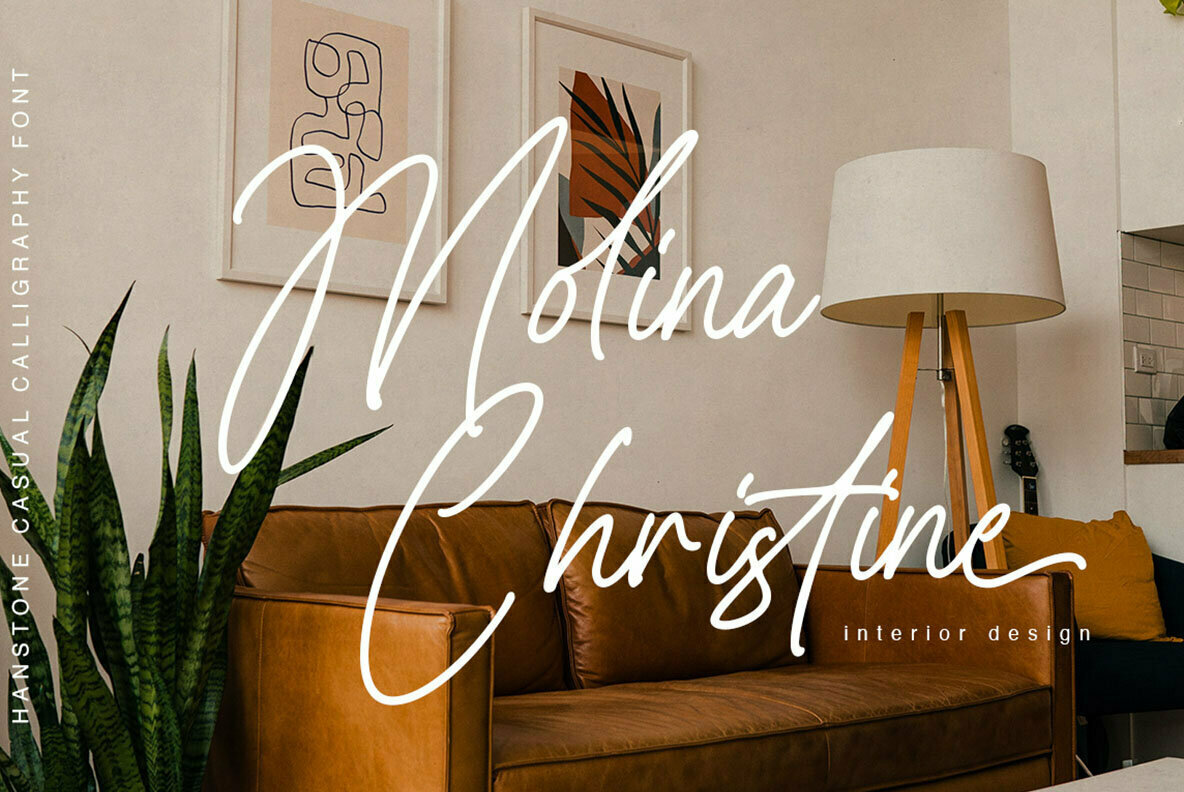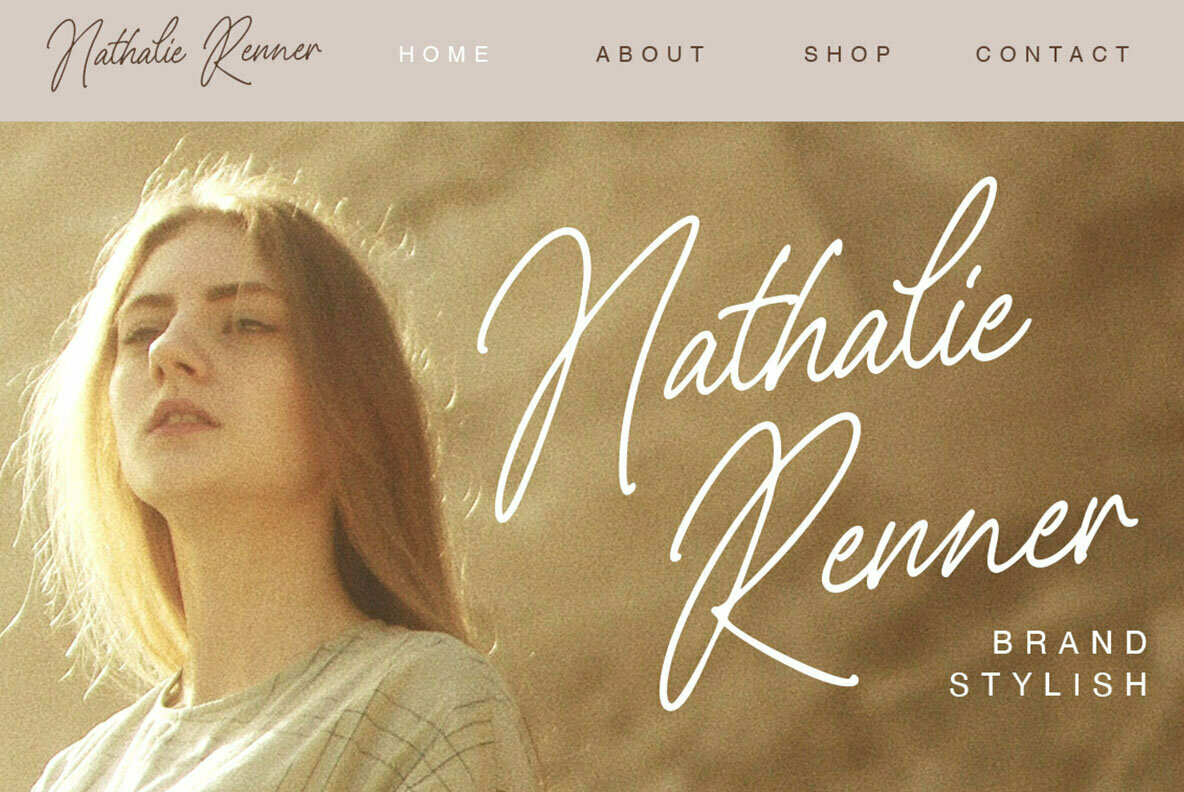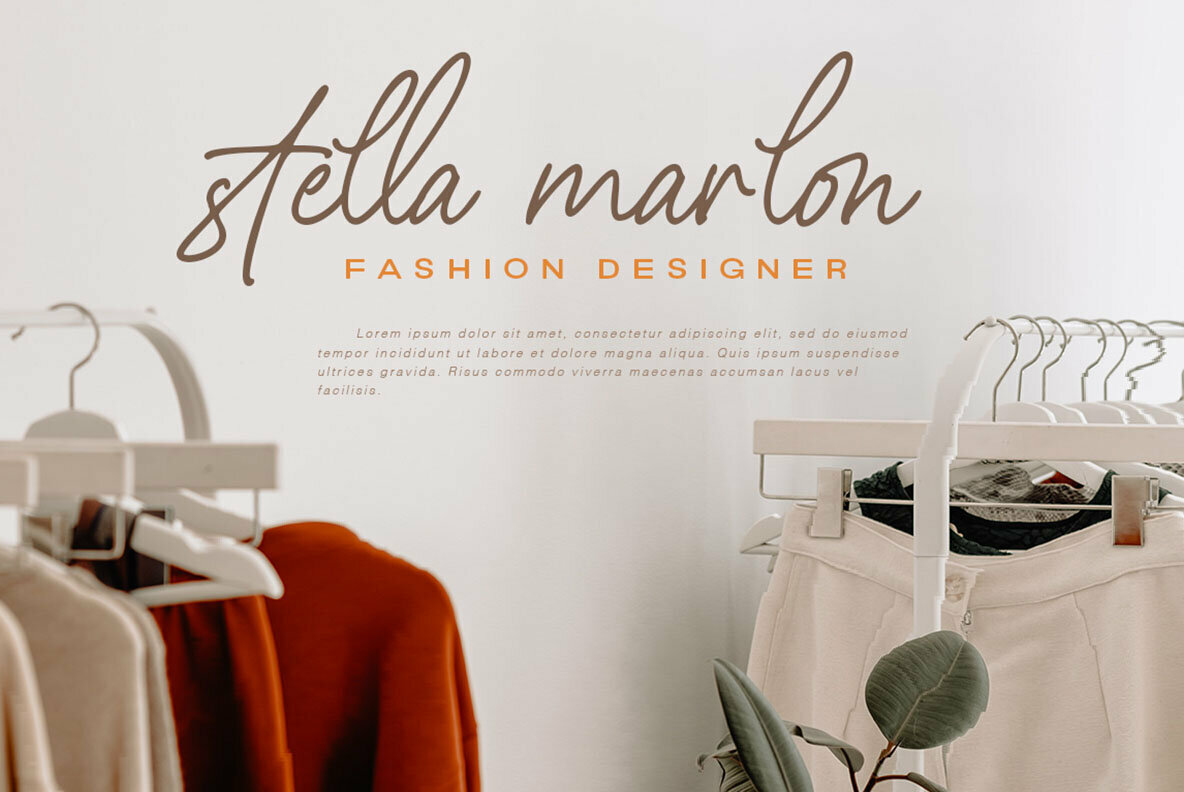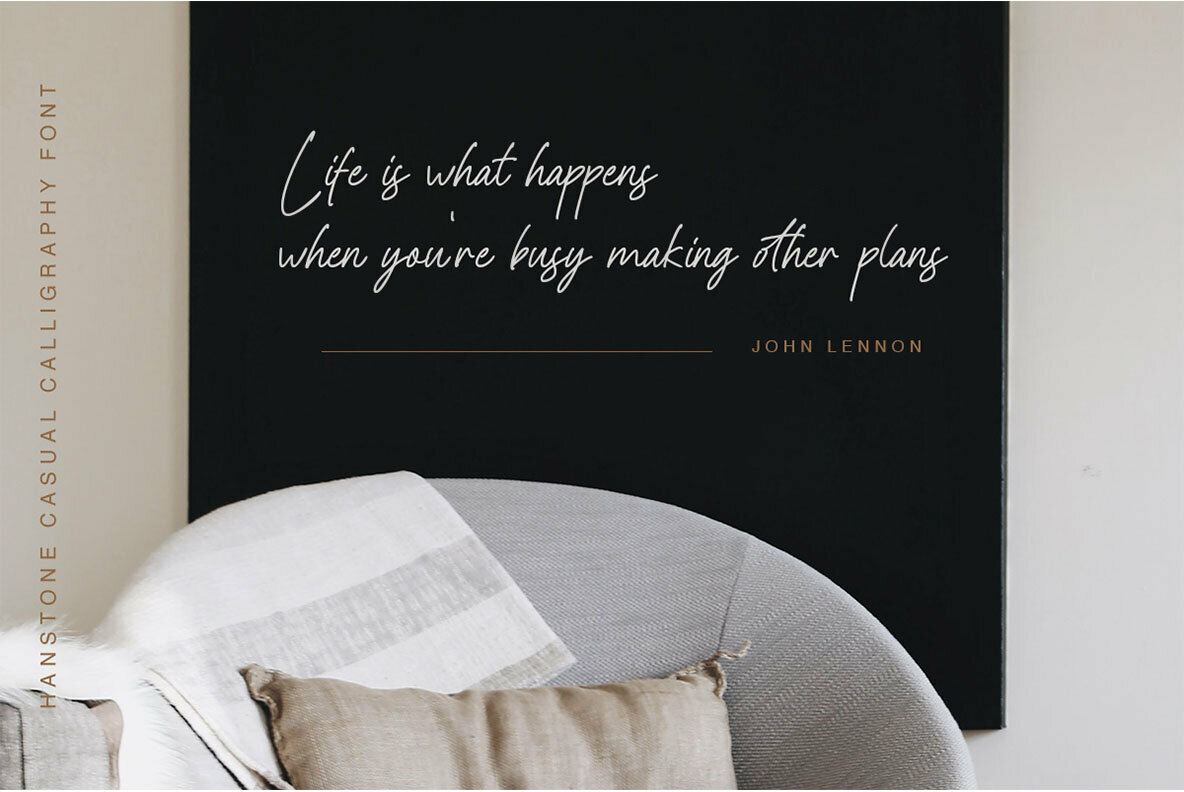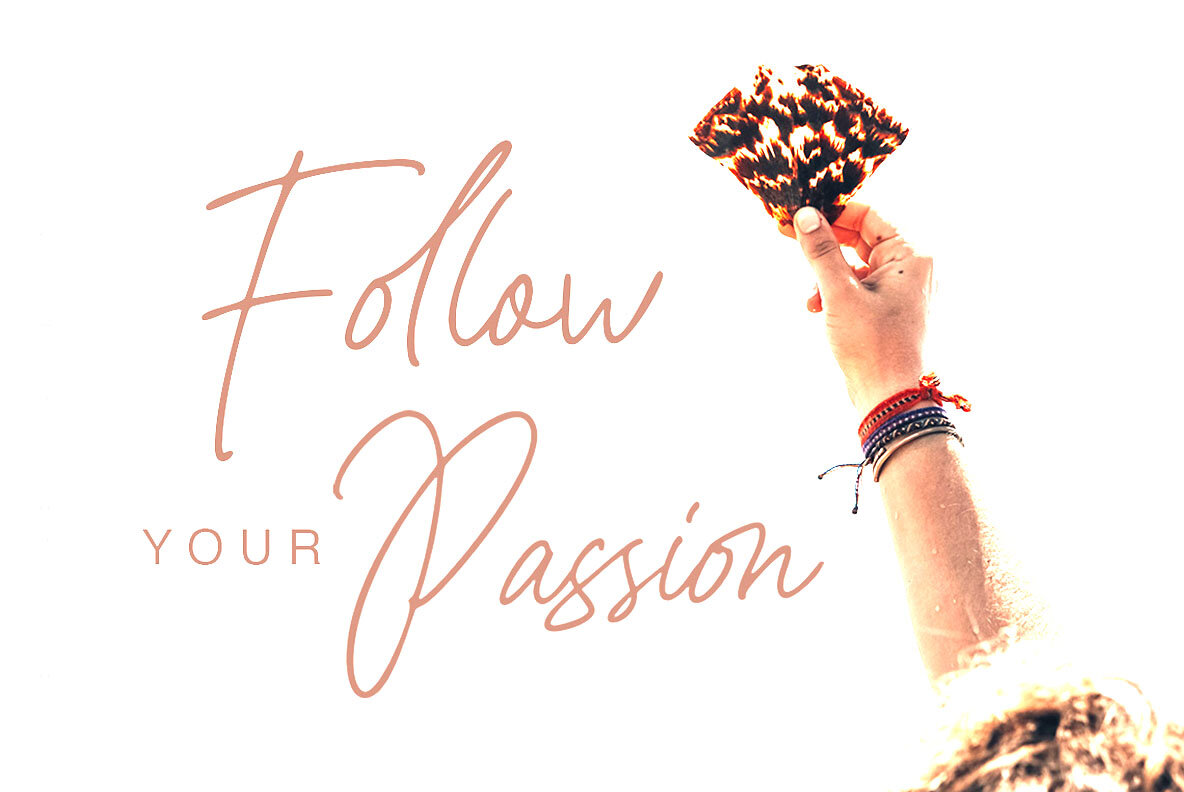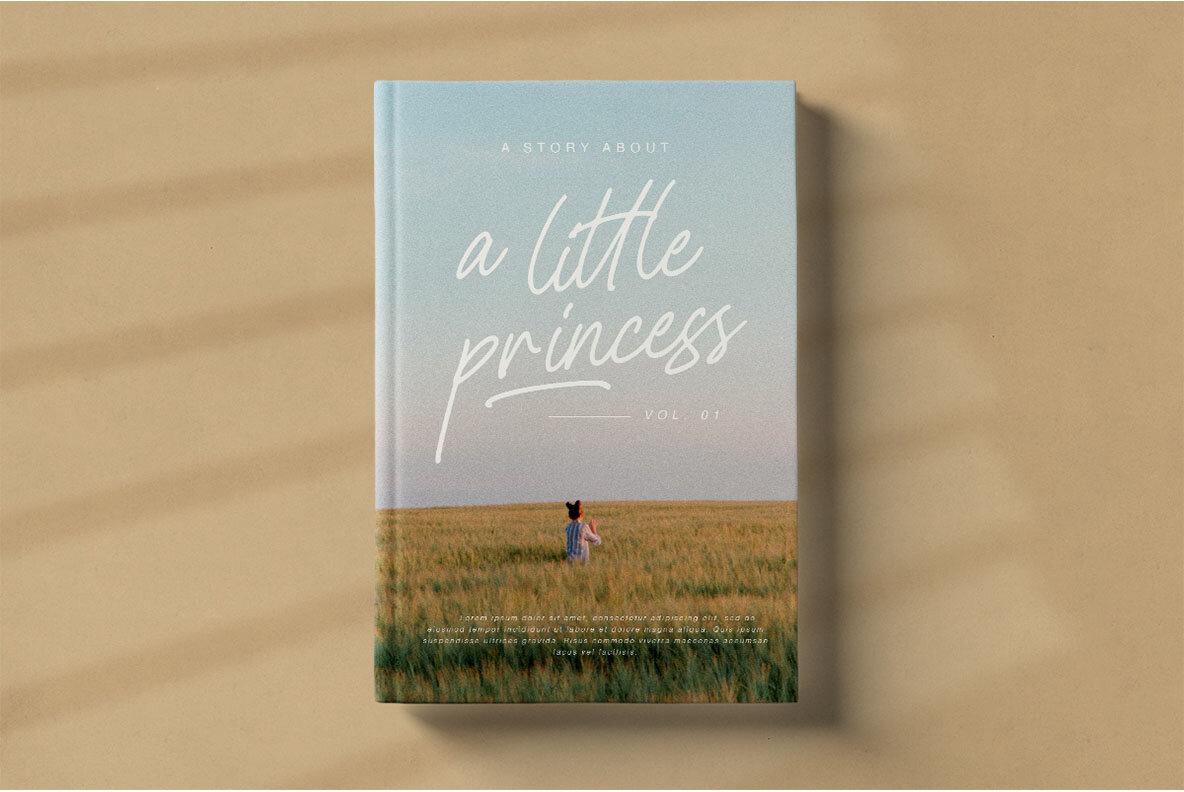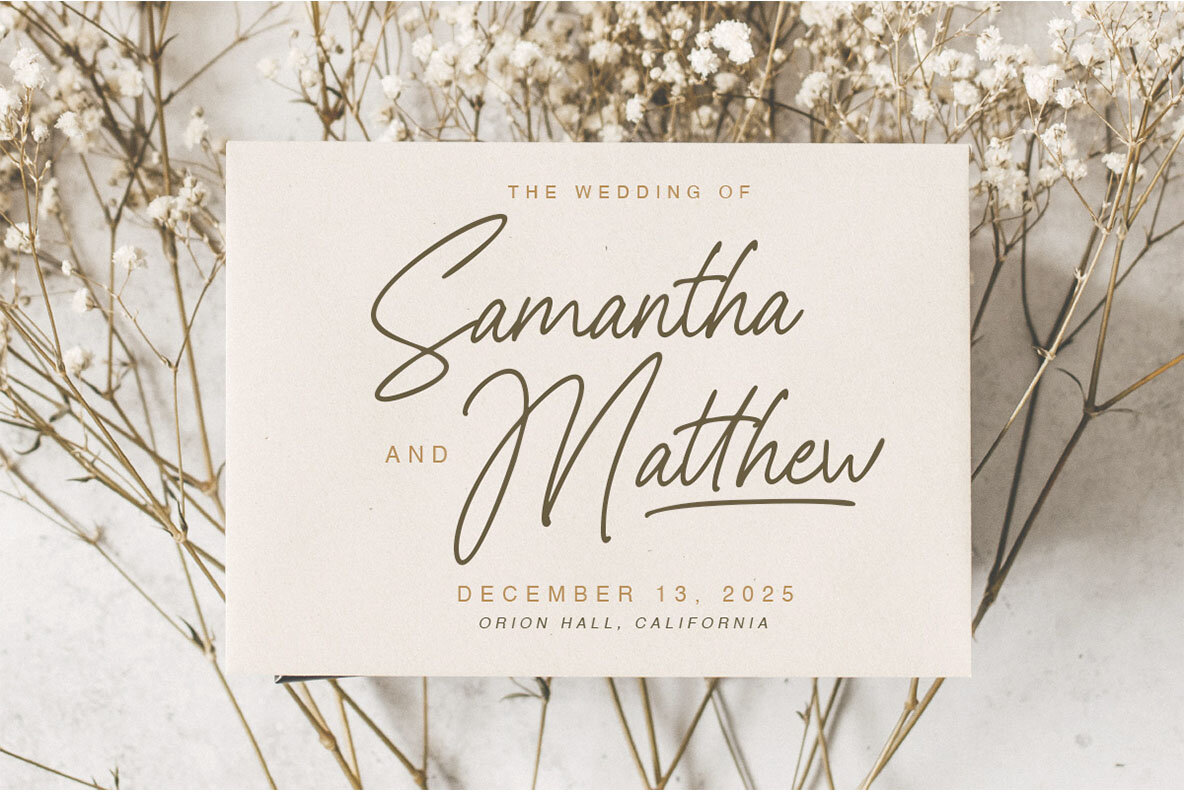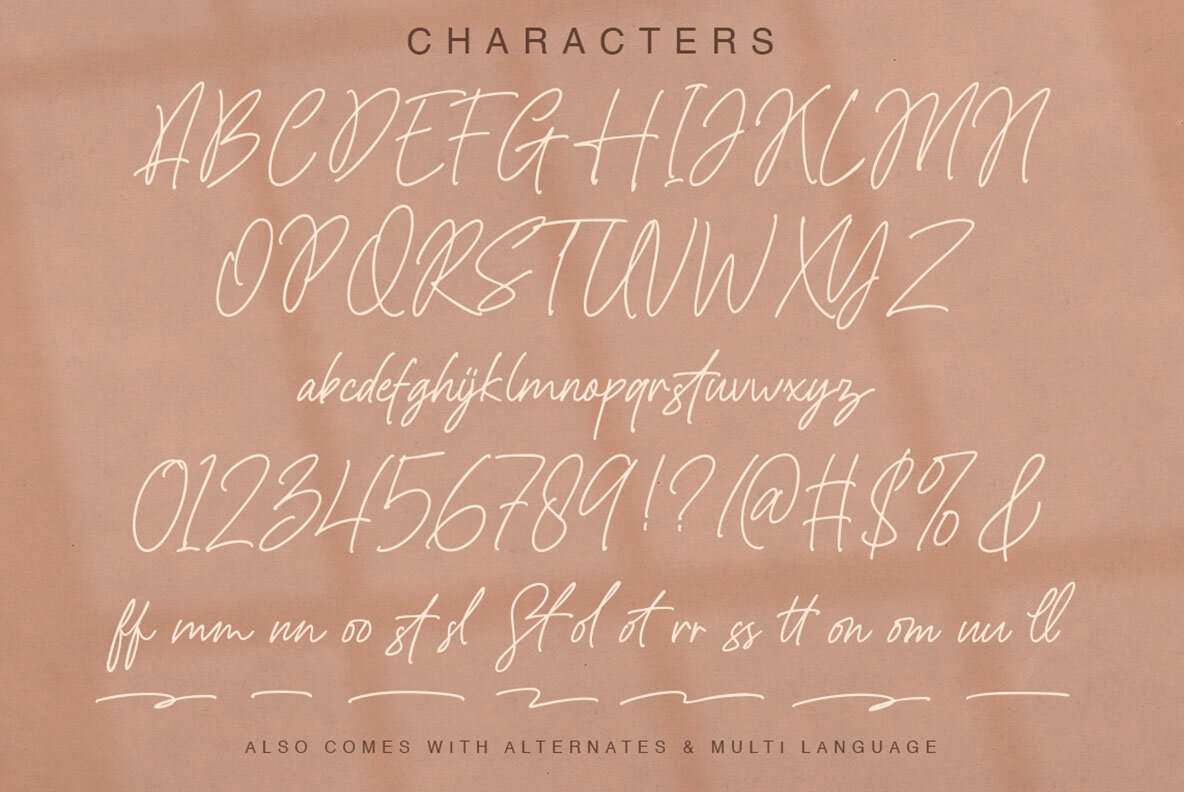
Hanstone Font
Hanstone
Hanstone is a beautiful script font based on manual hand writing. The stylistic alternate, ligatures and tick-and thin stroke make this typeface look like real gold leaf instead of typing out words with numbers in them! It's perfect for use on logos or other formal forms such as invitations--to name just some examples - book covers & chapters; greeting cards (think birthday wishes); fashion presentations/communications materials etcetera
- uppercase & lowercase
- numbers and punctuation
- multilingual
- alternates and ligatures